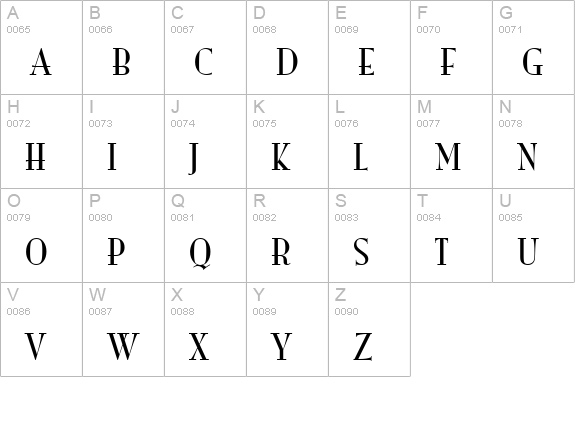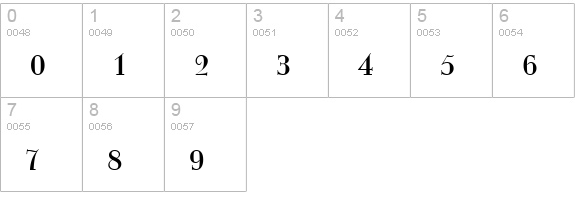
Mona Lisa ICG Solid Font Details
Mona Lisa ICG Solid font is a timeless and sophisticated typeface that exudes elegance and charm. With its bold and clean lines, this font is perfect for creating eye-catching designs that demand attention. The solid version of Mona Lisa ICG adds a touch of modernity and strength to any project. And the best part? Mona Lisa ICG Solid font is available for free download at FontsMarket.com. This means you can easily access this stunning font and bring your creative visions to life without breaking the bank. Don't miss out on the opportunity to enhance your designs with the beauty and versatility of Mona Lisa ICG Solid font. Download it today and let your creativity shine!